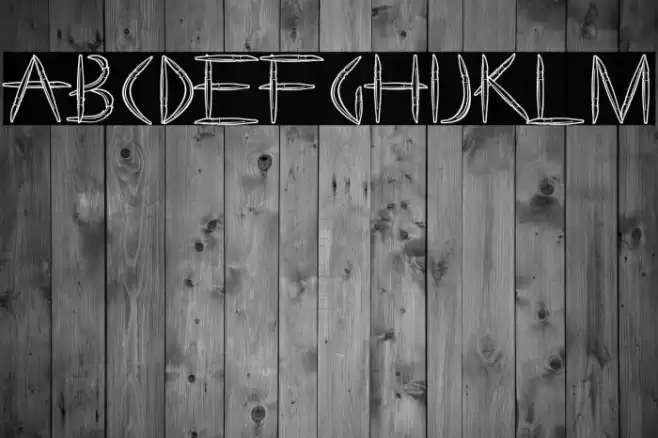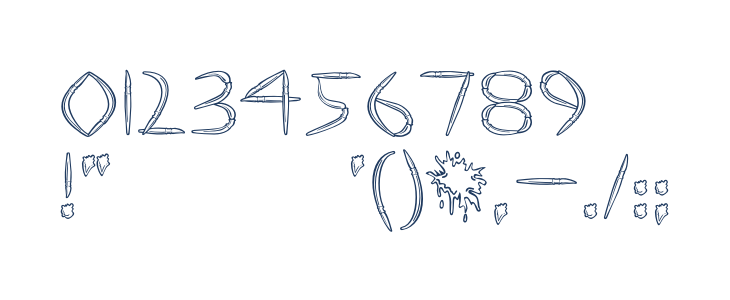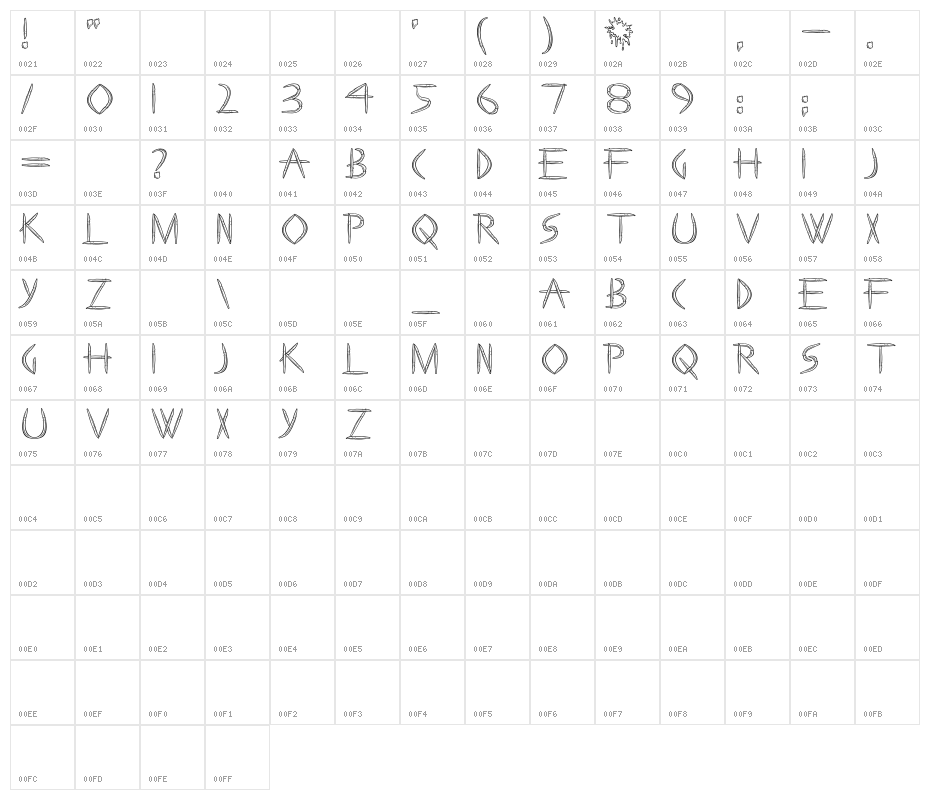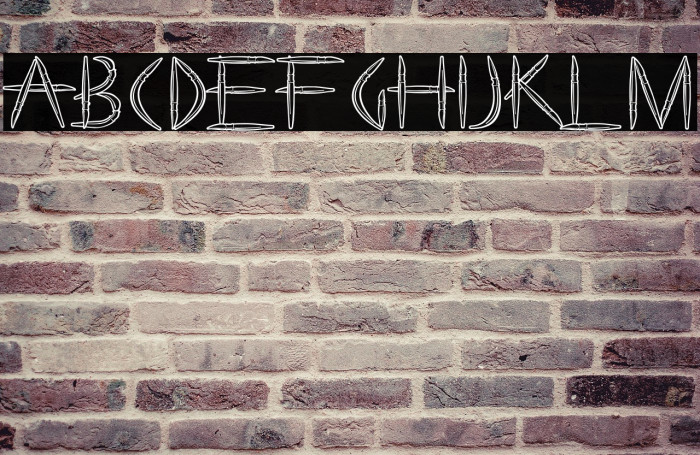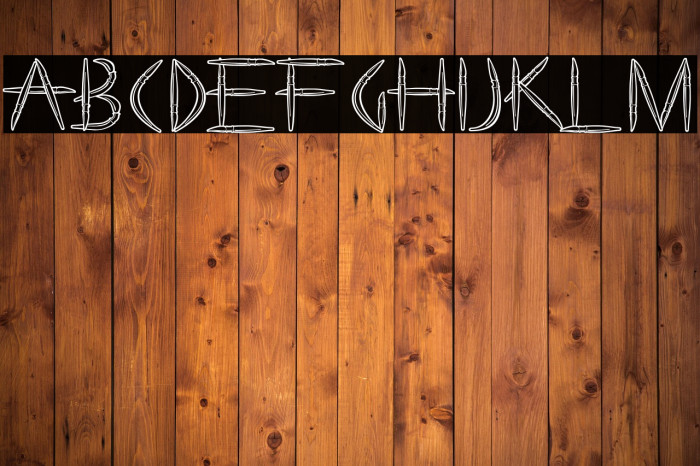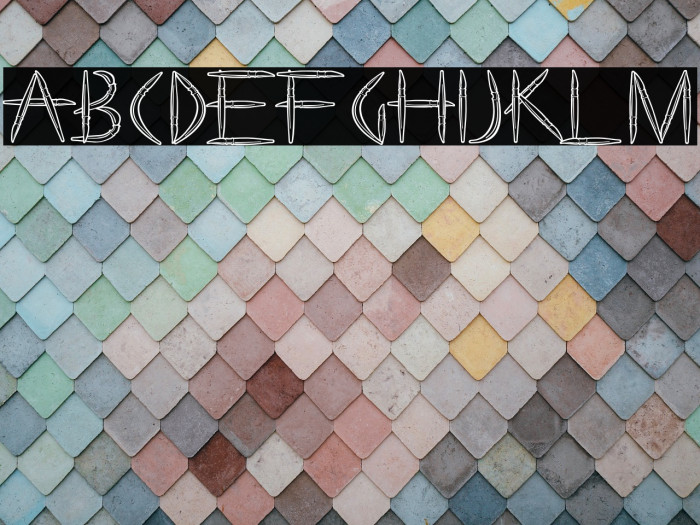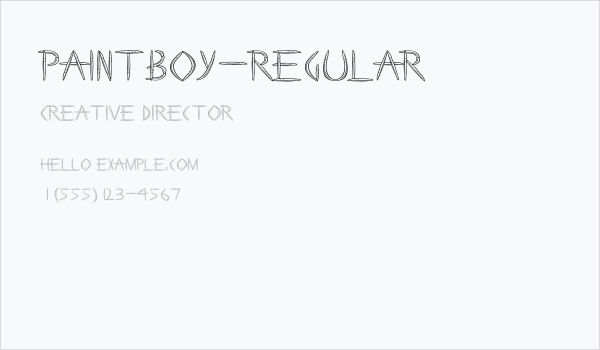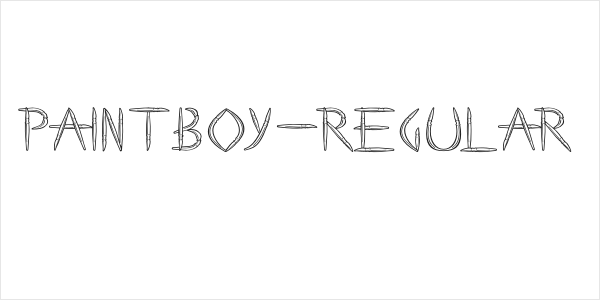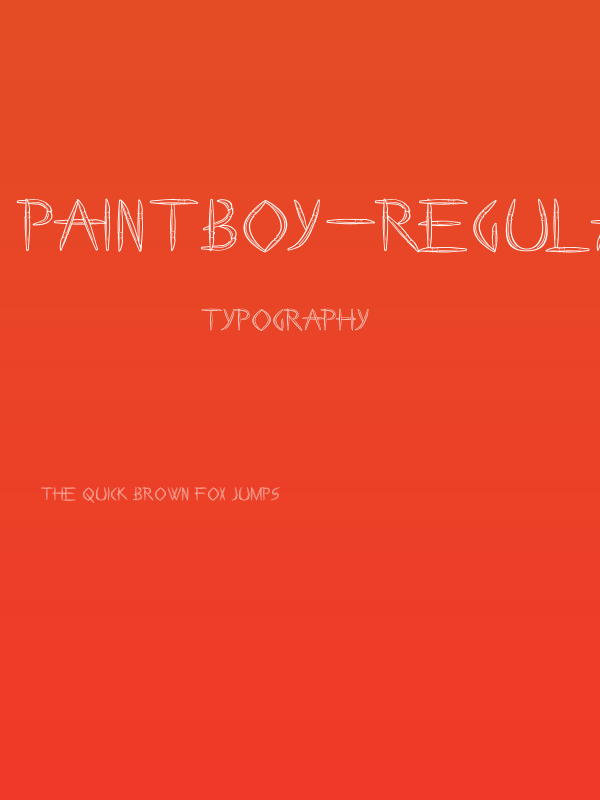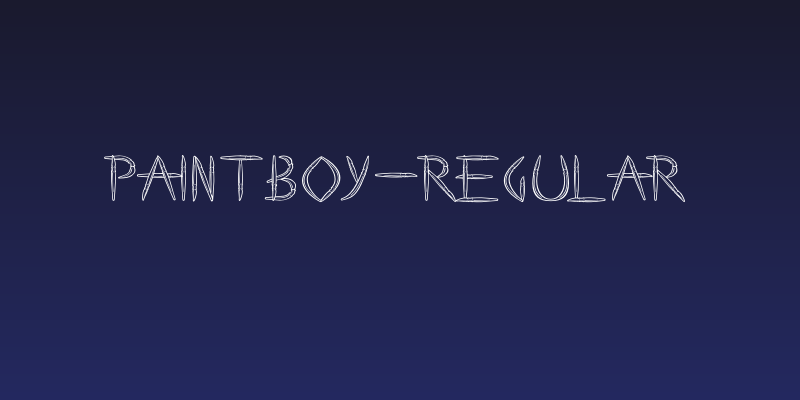
PaintBoy-Regular Font
PaintBoy-Regular Description
This font features a unique, hand-drawn style that mimics the appearance of brush strokes. Each character is crafted with a playful, artistic flair, giving the impression of being painted with a brush. The strokes are uneven, adding a dynamic and lively feel to the text. The uppercase and lowercase letters maintain a consistent style, with exaggerated curves and angles that enhance the artistic quality. Numbers and special characters follow the same design principles, ensuring a cohesive look across all elements. This font is perfect for projects that require a creative and informal touch.
A hand-drawn, brush-stroke style font with artistic flair from Uncategorized fonts.
- Proposed Projects: Ideal for art projects, creative branding, posters, and invitations.
- Overall Style: Artistic, Playful
- Use Case: Headlines, Logos, Creative projects